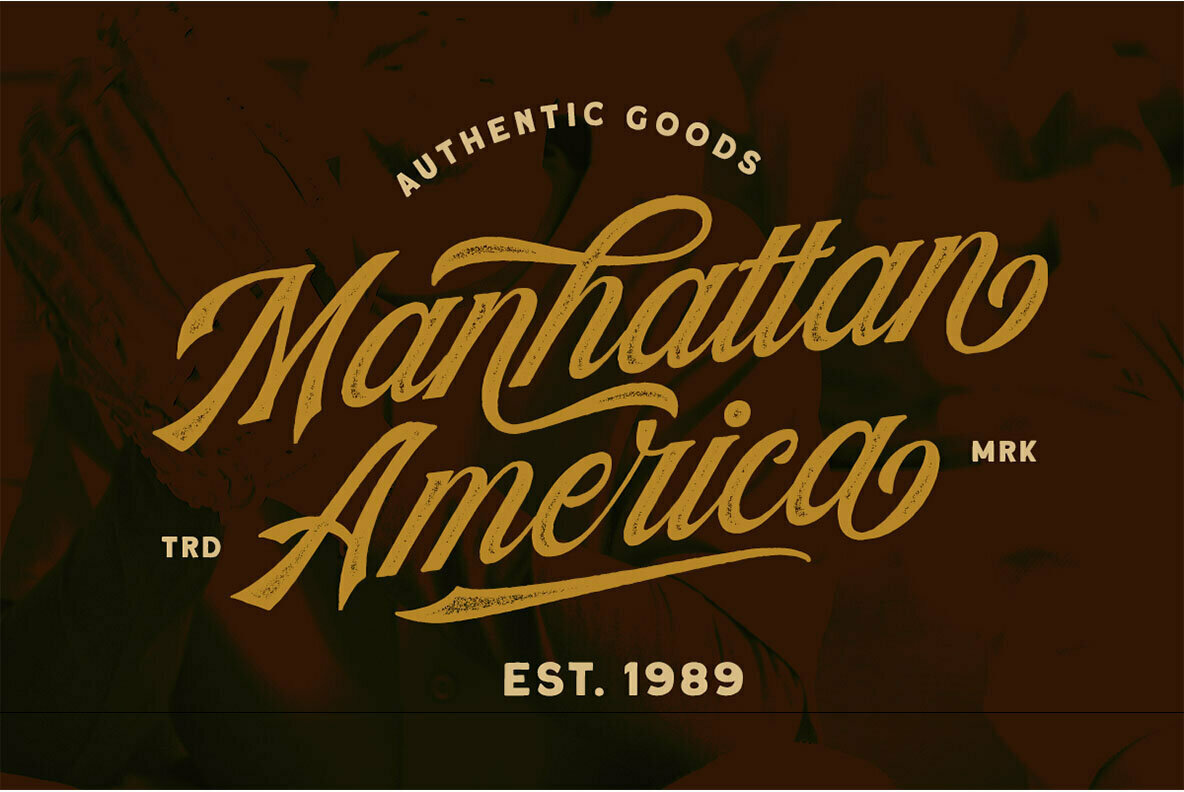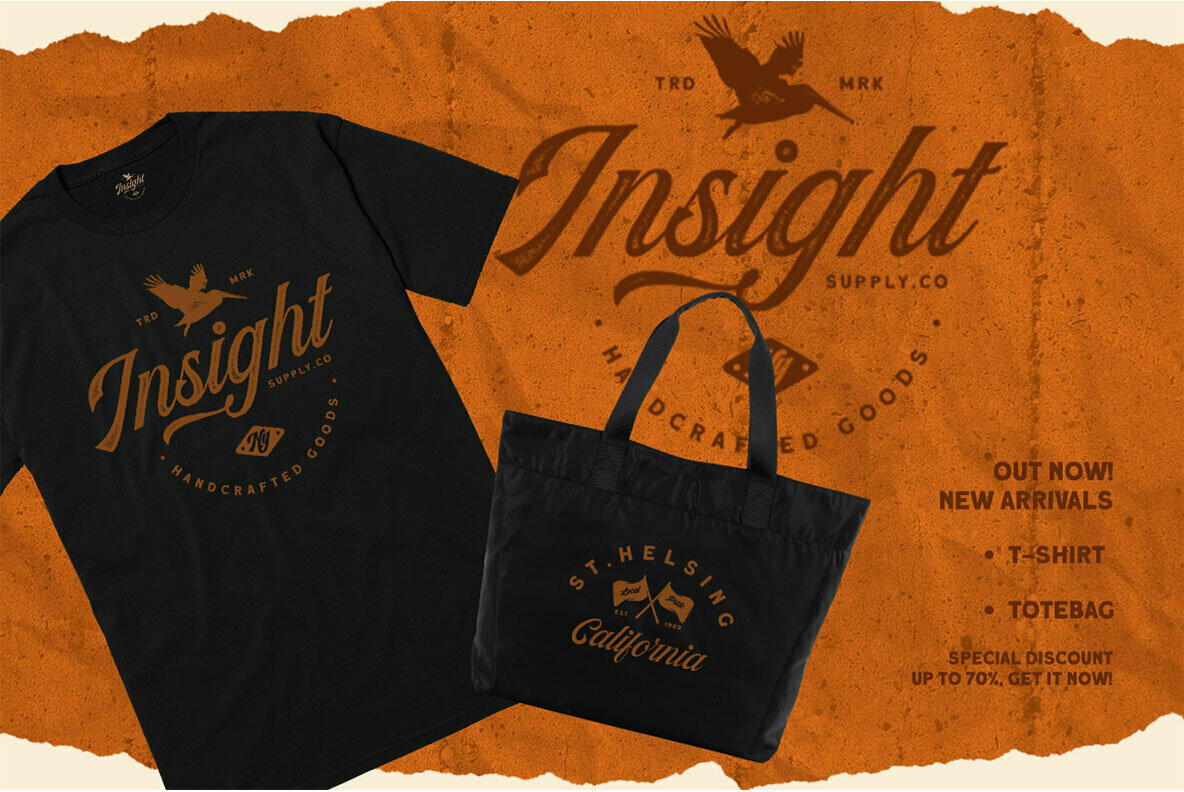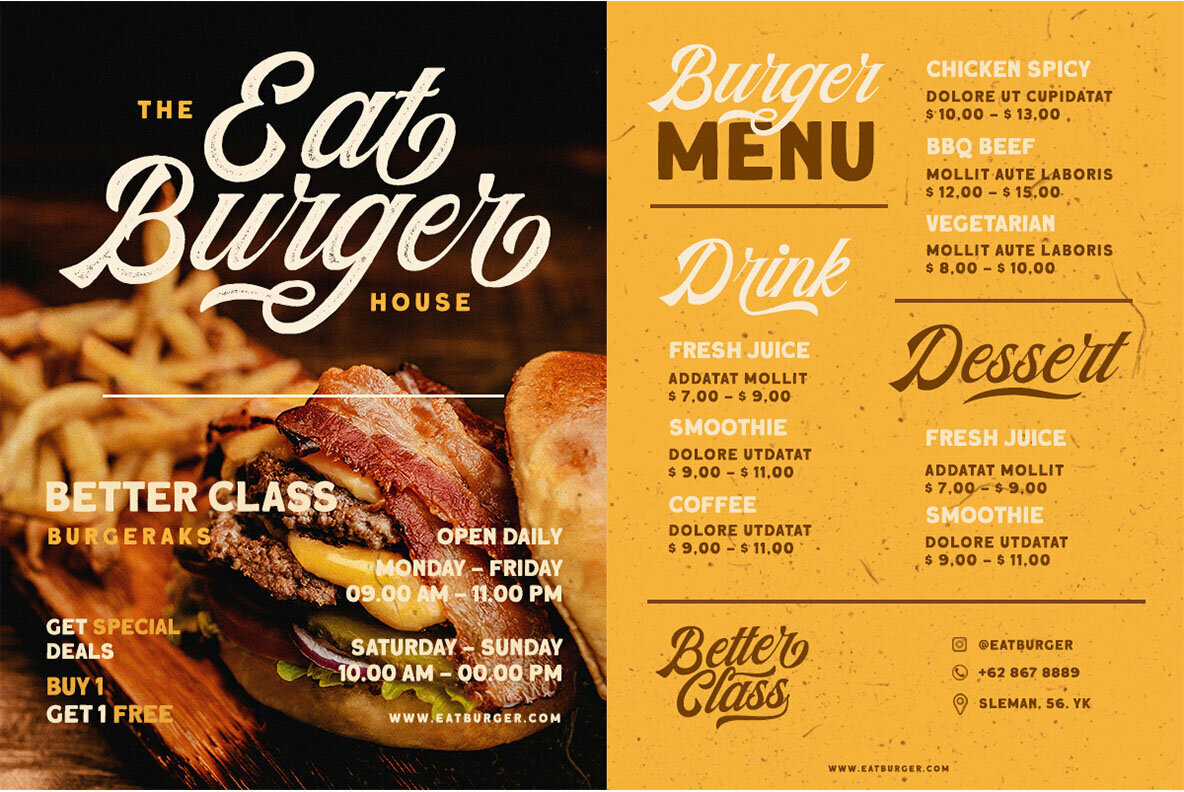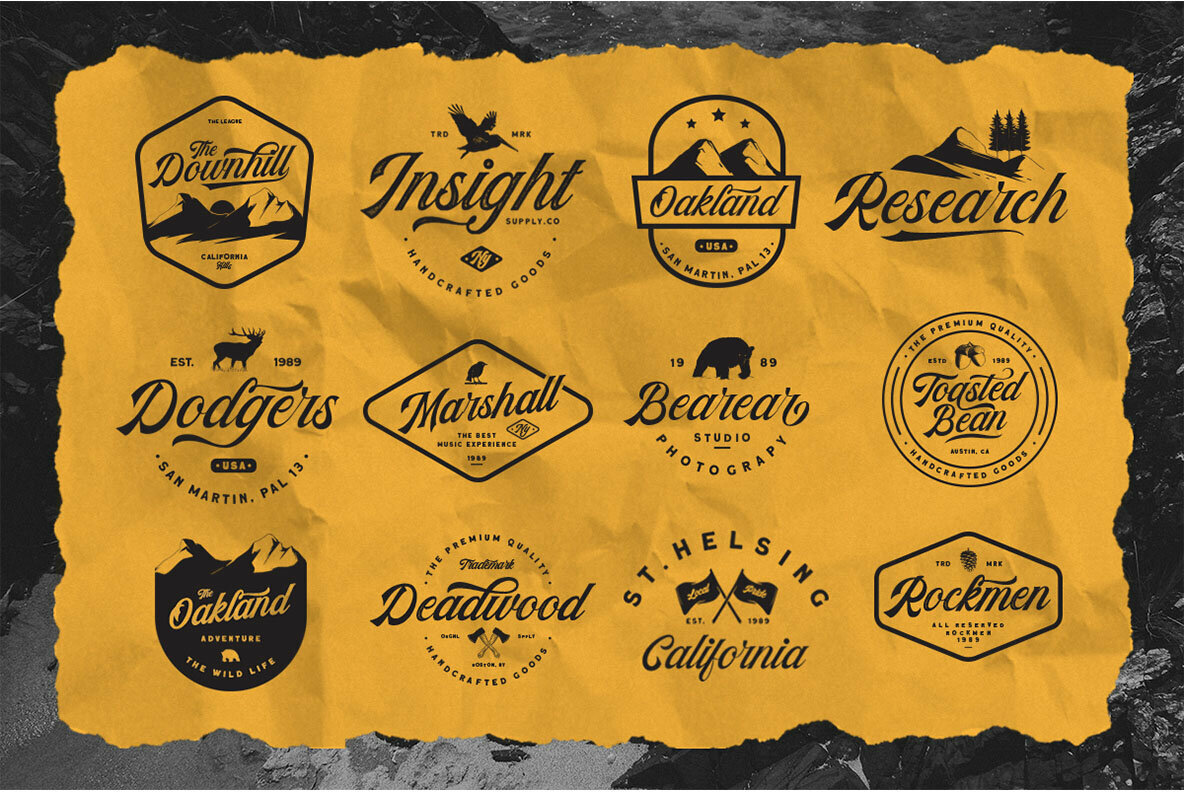
The Kingdrops Font Duo
Kingdrops Regular
Kingdrops Stamp
The Kingdrops Font Duo provides a whimsical blend of handcrafted lettering and clean sans typefaces, designed by Letterhend Studio for those who appreciate artistic typographic expression. This versatile font set is more than just a typeface; it's a creative toolbox offering 50 hand-drawn illustrations and 12 expertly designed logo templates, making it an ideal choice for a variety of formal and casual projects. Whether designing logos, invitations, book covers, or advertisements, the Kingdrops Font Duo adapts seamlessly to your creative vision. For optimal use, we suggest programs that support OpenType features and a Glyphs panel, like Adobe software and Corel Draw, allowing access to this font's full range of artistic possibilities. Let Kingdrops be the cornerstone of your next distinguished design project.The Kingdrops Font Duo: Artisanal Script and Sans Combination